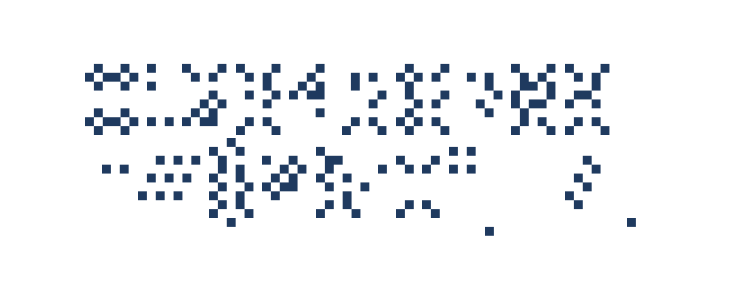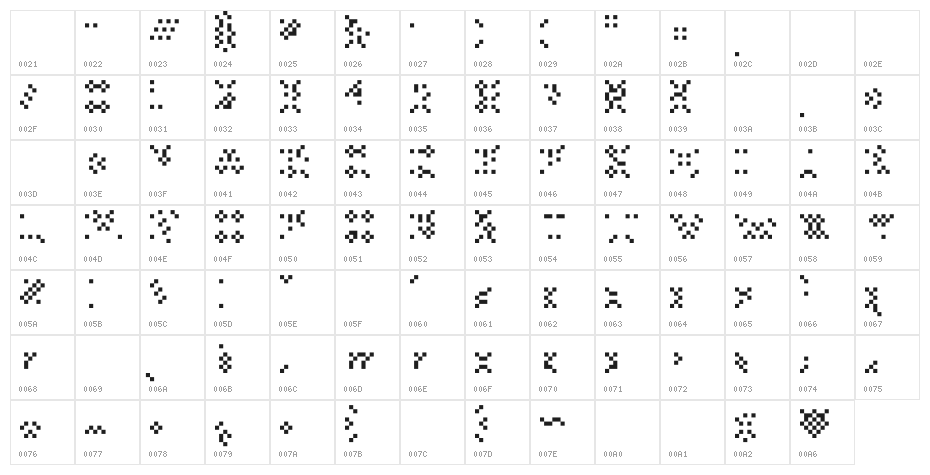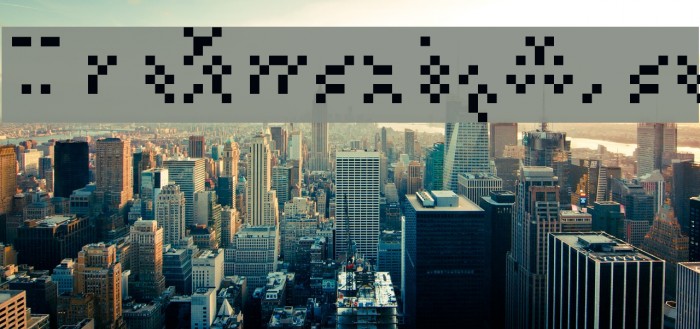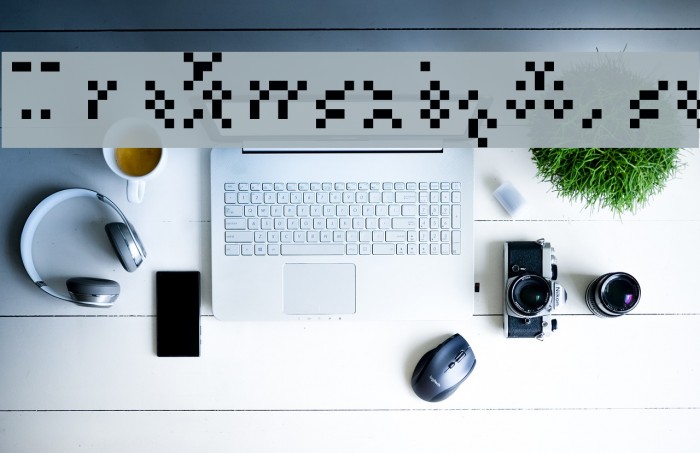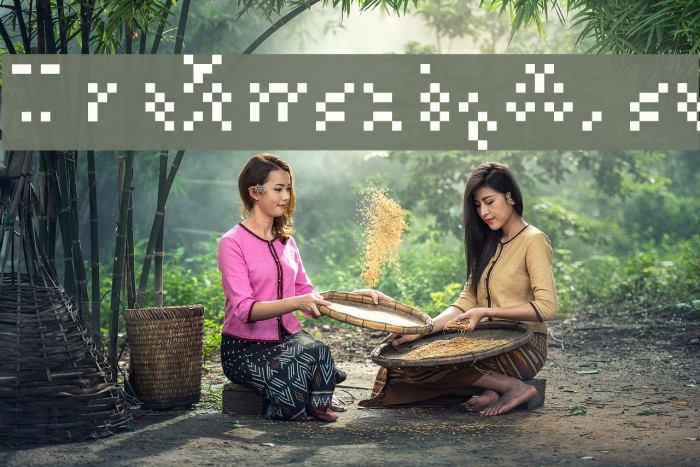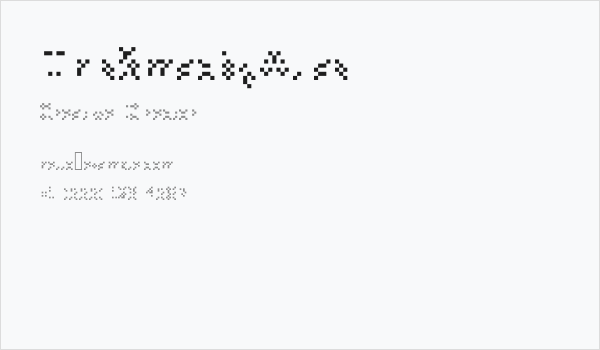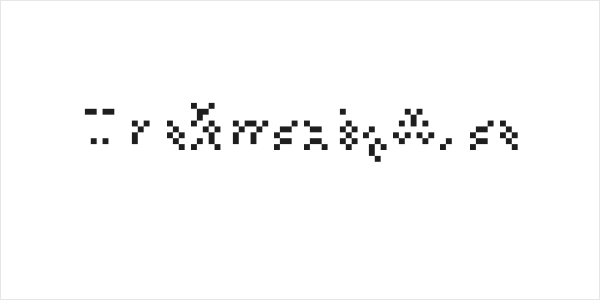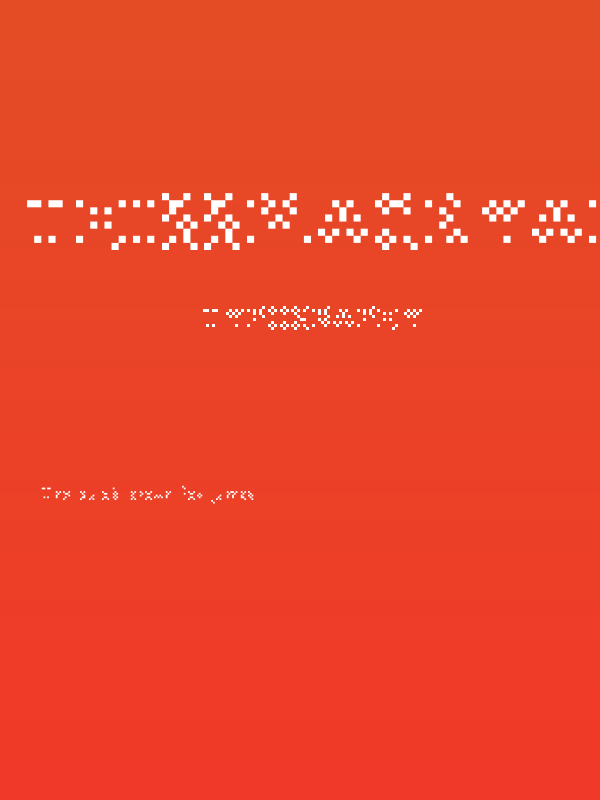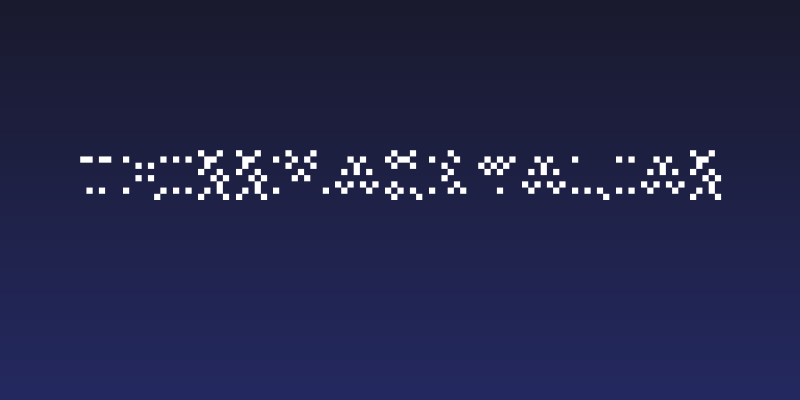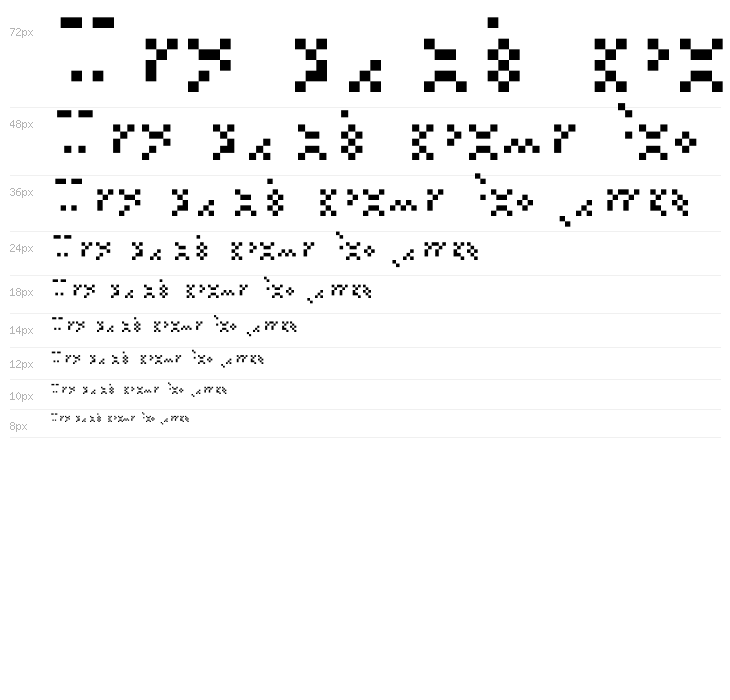
ThisSmackyAlias Font
ThisSmackyAlias Description
This font is a pixelated, retro-style typeface that evokes the aesthetics of early digital displays and classic video games. Each character is composed of a grid of small squares, giving it a blocky and geometric appearance. The uniformity in the design creates a cohesive look, while the sharp edges and corners add a sense of precision and clarity. This font is highly legible at larger sizes and is ideal for capturing a nostalgic or tech-inspired feel. The characters are evenly spaced, maintaining a consistent rhythm across the text. Its simplicity and boldness make it suitable for eye-catching designs.
| Overall Style | Retro, Digital |
| Proposed Projects | Ideal for video game design, retro-themed posters, digital art projects, and tech-related branding. |